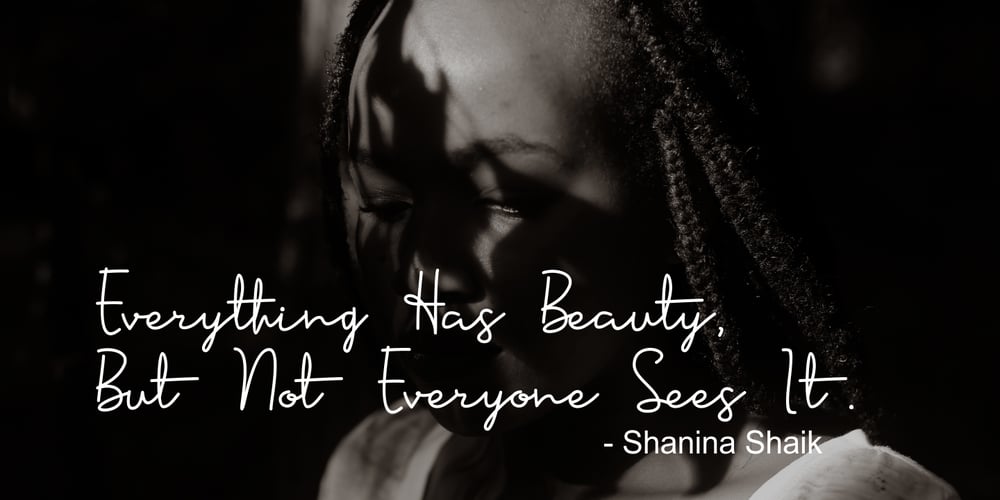
Sennita Font Family was designed by Dian Haniffan Hadi and published by Beary. Sennita contains 1 styles and family package options. Sennita Signature Script – a new modern & script style make this font looks elegant, natural, stylish and perfect for any awesome projects that need handwriting taste. – Fonts include multilingual support for; ä ö ü Ä Ö Ü ß ¿ ¡